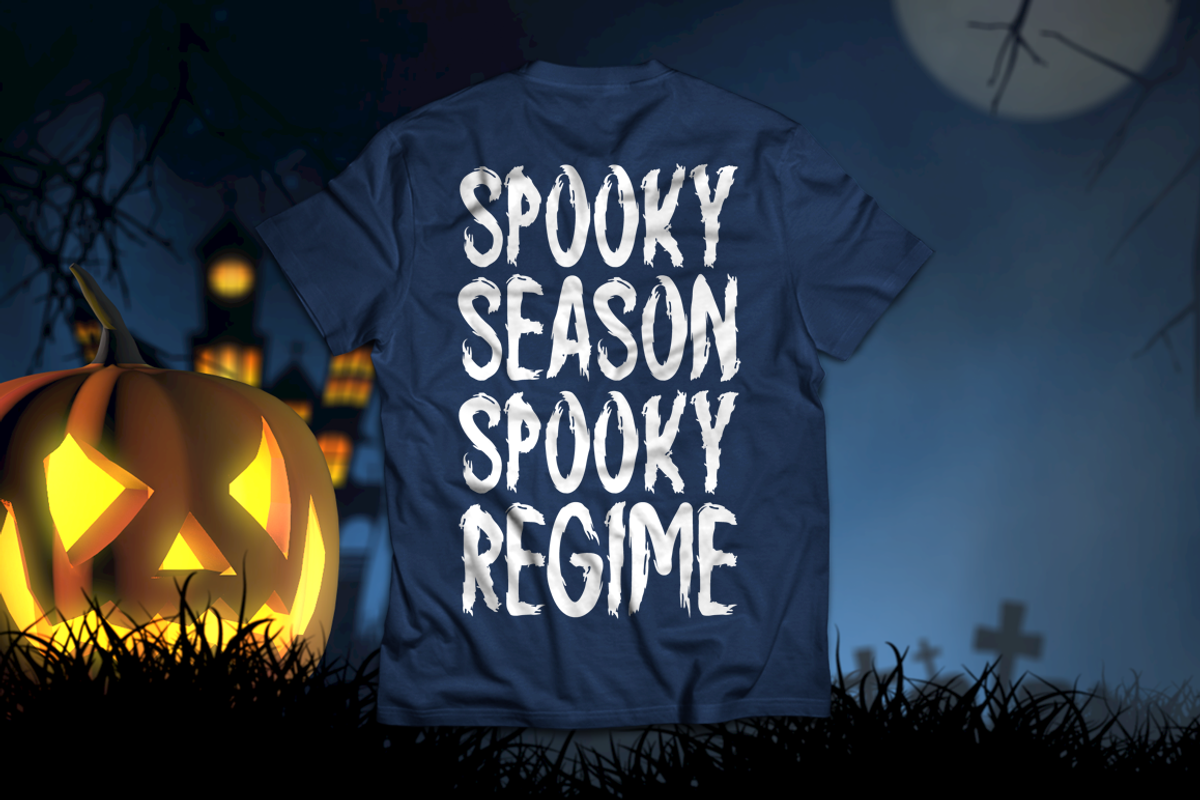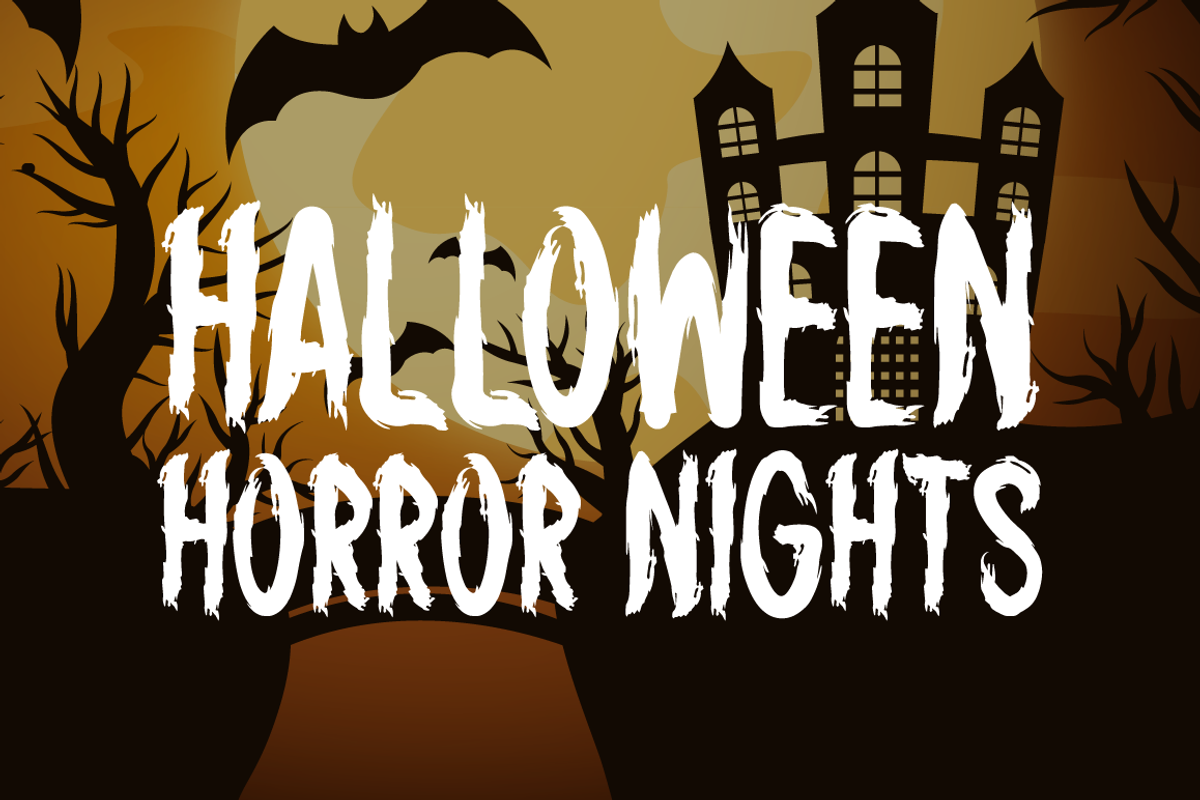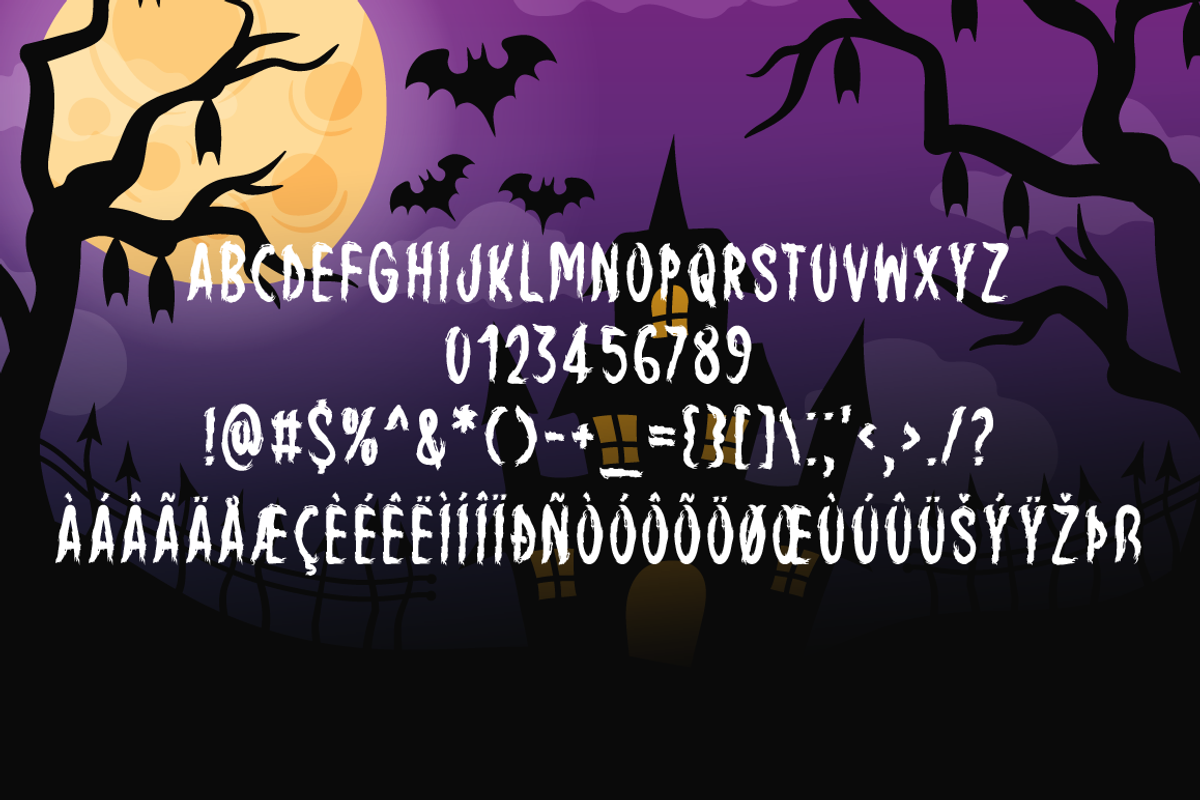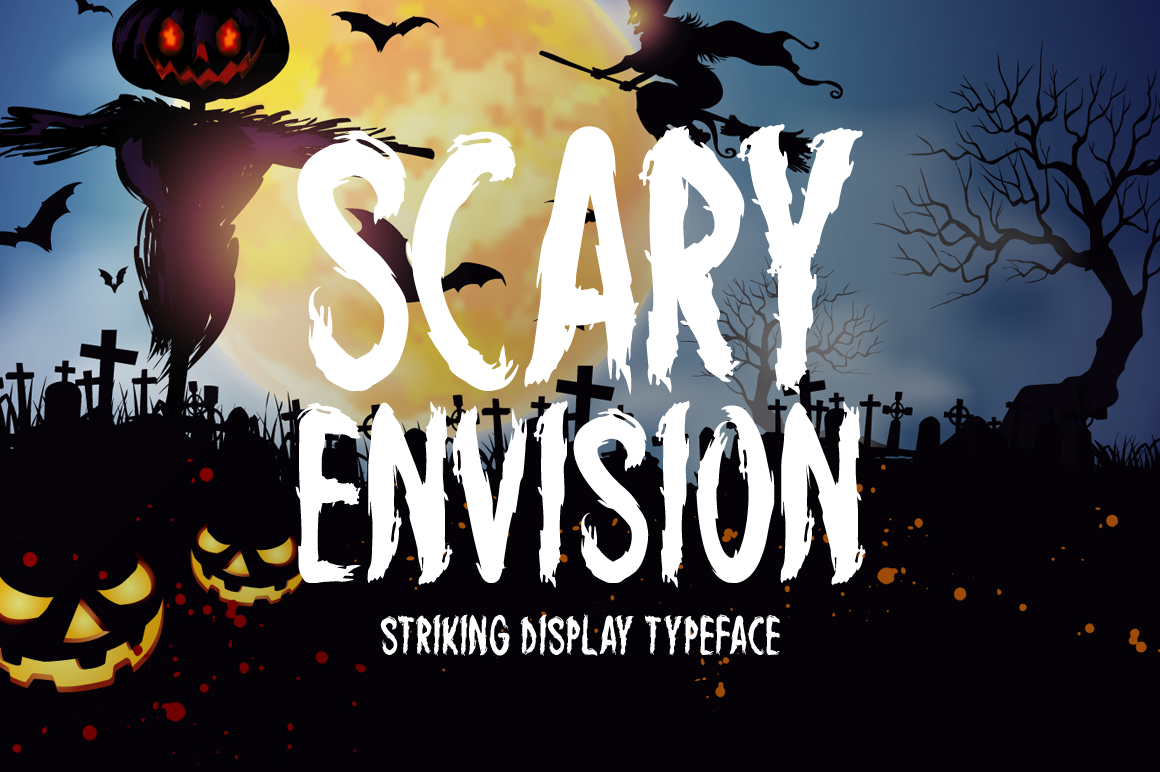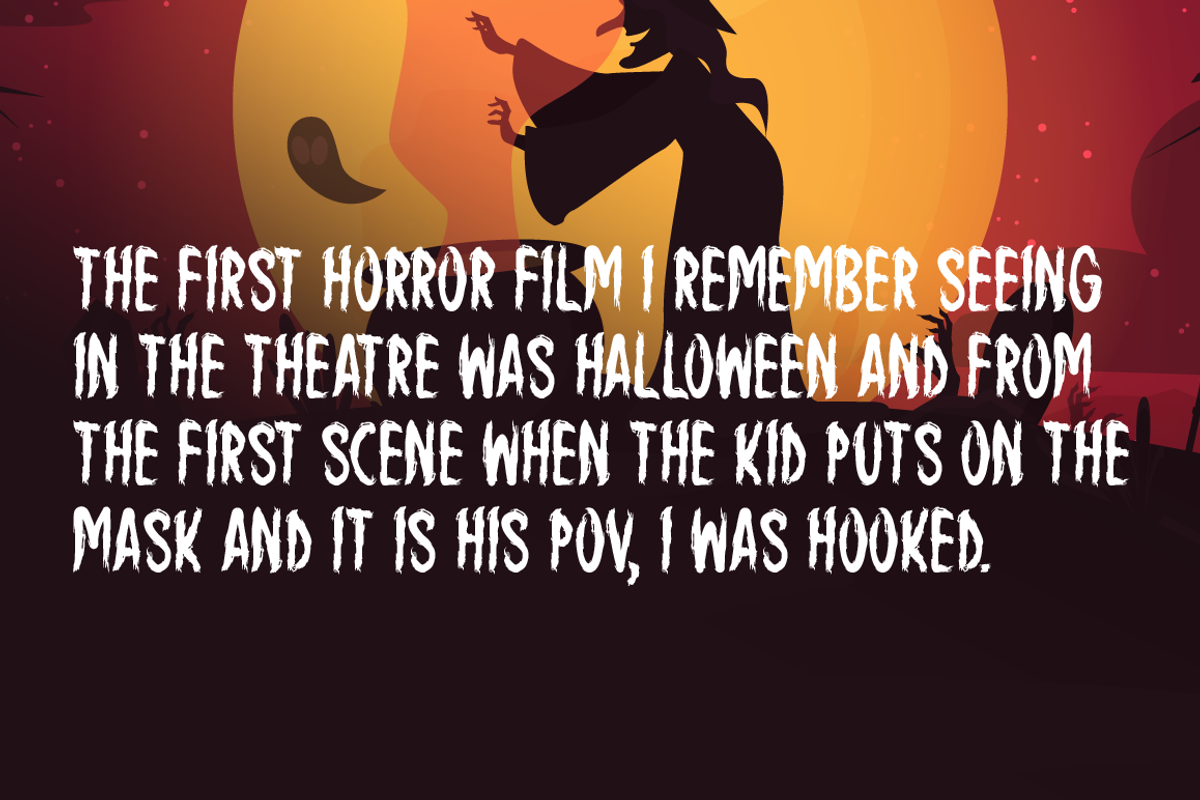
Scary Envision Typeface
Introducing Scary Envision!
Scary Envision is a casual and creepy-looking display font. It is perfectly suitable for any Halloween-related project or crafty idea! The only limit is your imagination.
Includes a range of multilingual support